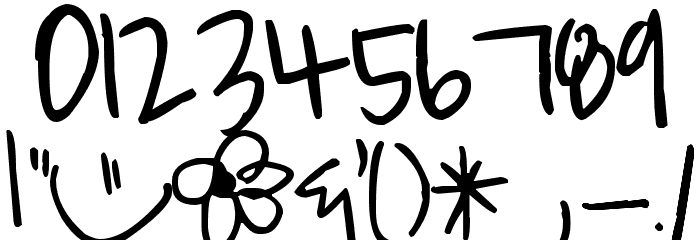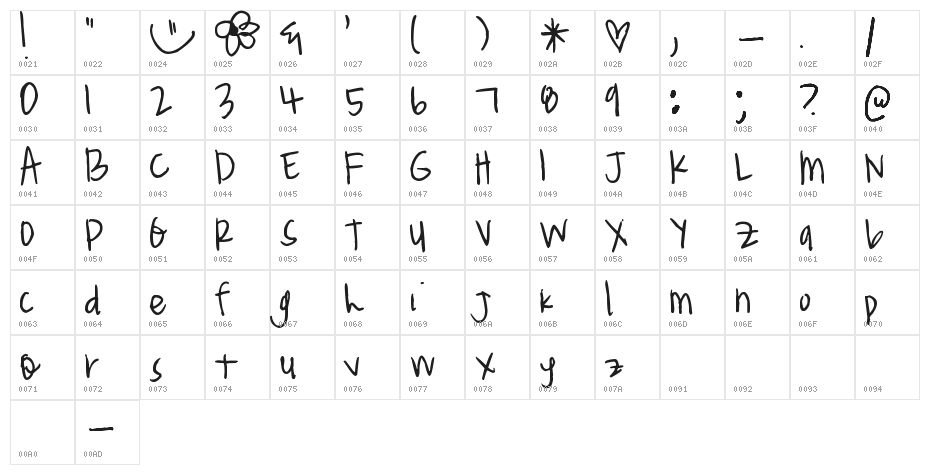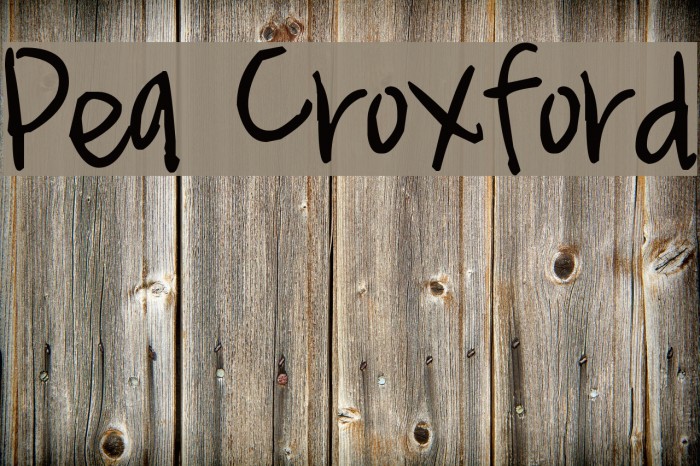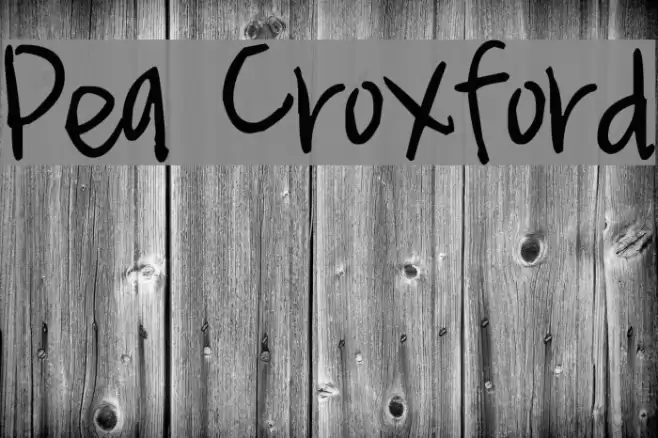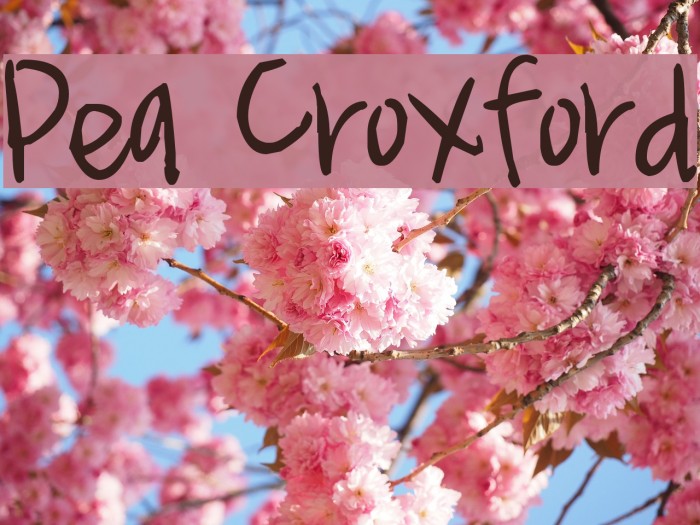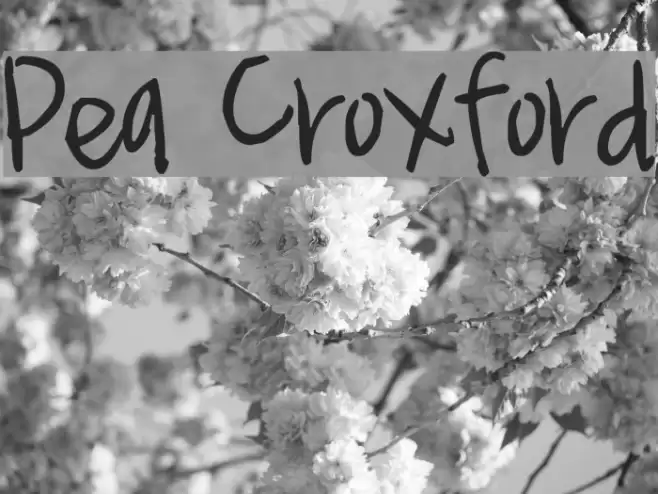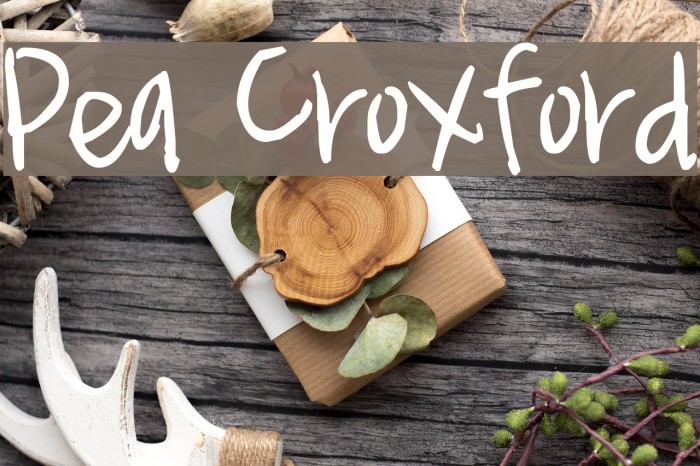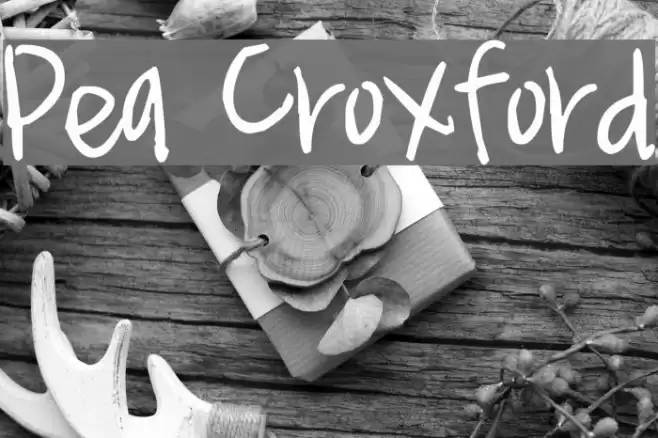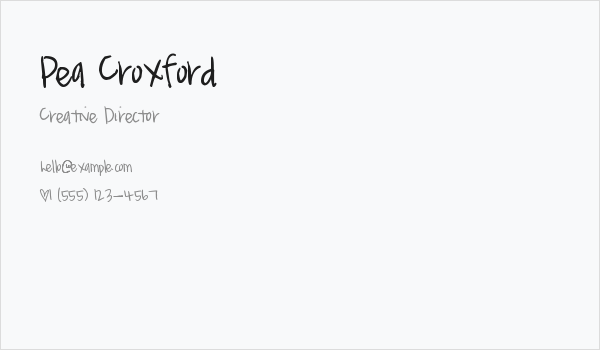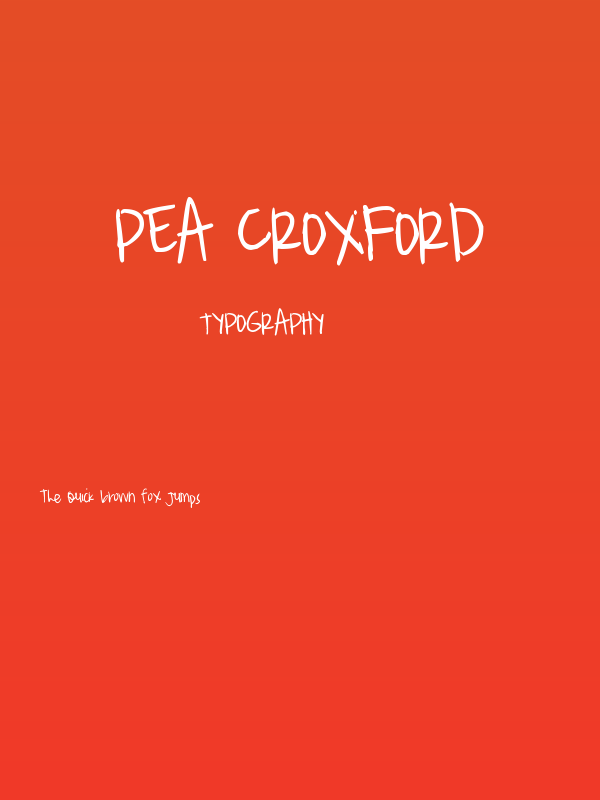
Pea Croxford Font
Pea Croxford Description
This font exudes a playful and casual handwritten style, characterized by its irregular strokes and informal appearance. The letters are unevenly sized, with a spontaneous and organic flow that mimics natural handwriting. The uppercase and lowercase letters maintain a consistent style, with rounded edges and a slightly slanted orientation. Numbers and special characters follow the same informal aesthetic, adding to the font's cohesive look. This font is ideal for projects that require a personal touch, conveying warmth and approachability.
| Use Case | Logos, Greeting cards, Informal branding |
| Proposed Projects | Ideal for greeting cards, personal notes, children's books, and informal branding. |